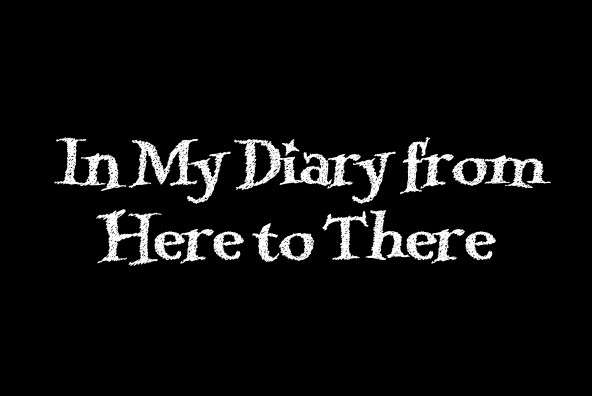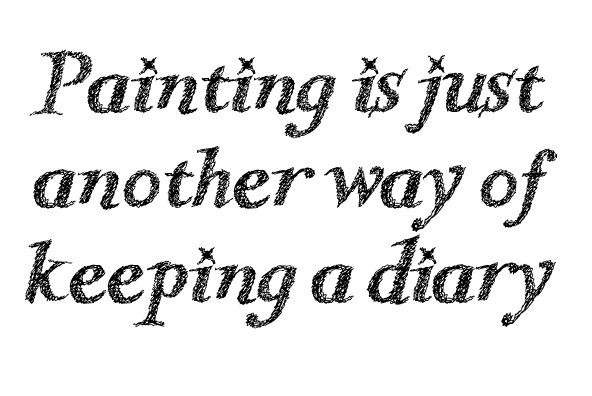
Kidela Sketch
Kidela Sketch is an energetic and eccentric serif typeface rendered in a sketchy style. The typeface includes 64 auto-replacing discretionary ligatures to extend the natural sketched look, oldstyle figures and small caps. Kidela Sketch is an excellent choice when you need a fun and interesting serif.